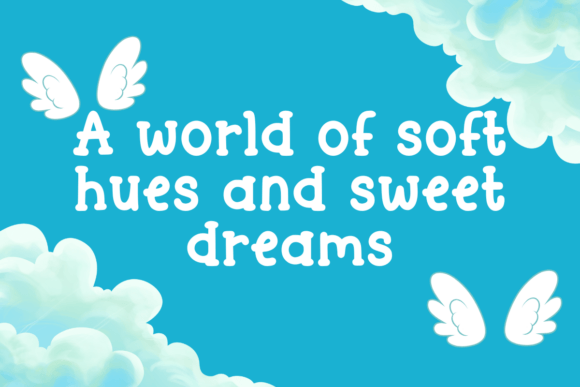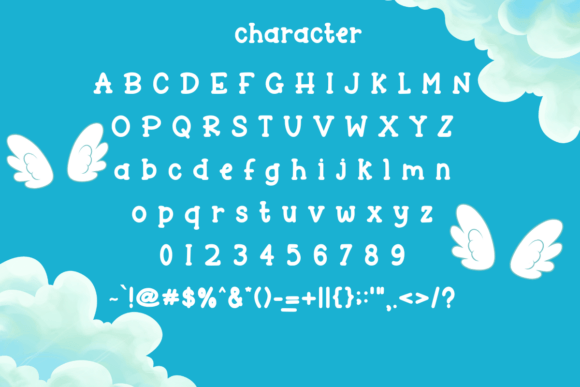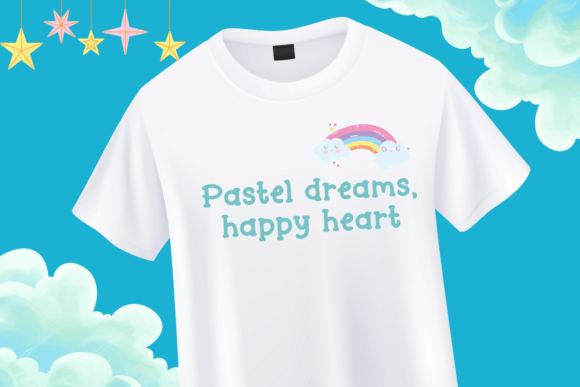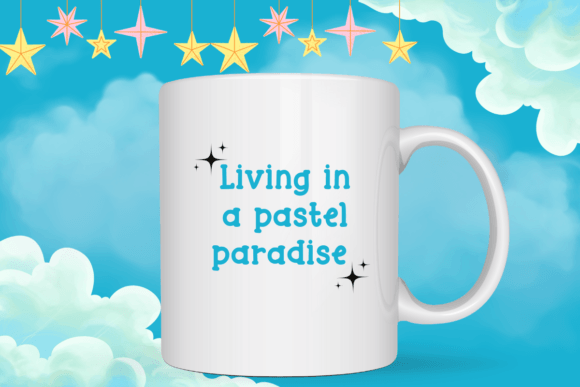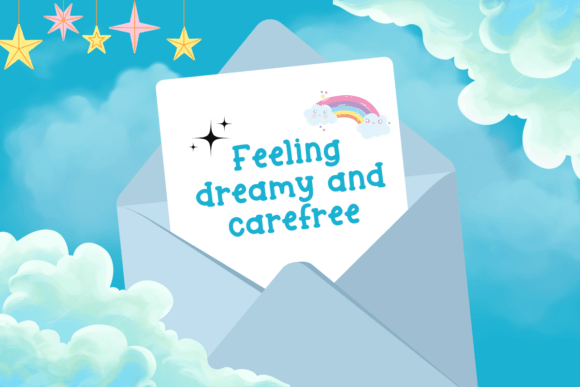
Introduction to Pastel Dreams Font Font
Fonts play a crucial role in design, and the Pastel Dreams Font font is a typeface that brings both character and versatility to any project. Whether you’re working on a branding project, a website, or a print design, the Pastel Dreams Font font offers a unique style that can elevate your work.
Pastel Dreams is a fun sans serif font.
A font suitable for memos, journals, notes, planners, interior KDPs, cards, invitations, scrapbooks and many other creative ideas Apart from that, it is also suitable for cardinals, Christmas, Halloween, Buddhist, Thanksgiving, funky, fall, laser, mini calendars, laser cut, tumbler wrap, seamless patterns, basketball, zodiac, mockups, t-shirts, quotes, tarot.
Key Features of Pastel Dreams Font Font
Why Choose Pastel Dreams Font Font?
The Pastel Dreams Font font is more than just a typeface – it’s a design tool that helps you communicate your message with style and clarity. Its unique character set and versatile design make it suitable for a wide range of applications, from elegant invitations to bold headlines.
With its carefully crafted letterforms and balanced proportions, the Pastel Dreams Font font ensures readability and visual appeal across all mediums.
What makes Pastel Dreams Font font special?
The Pastel Dreams Font font stands out with its unique design, exceptional readability, and versatility across various design applications.